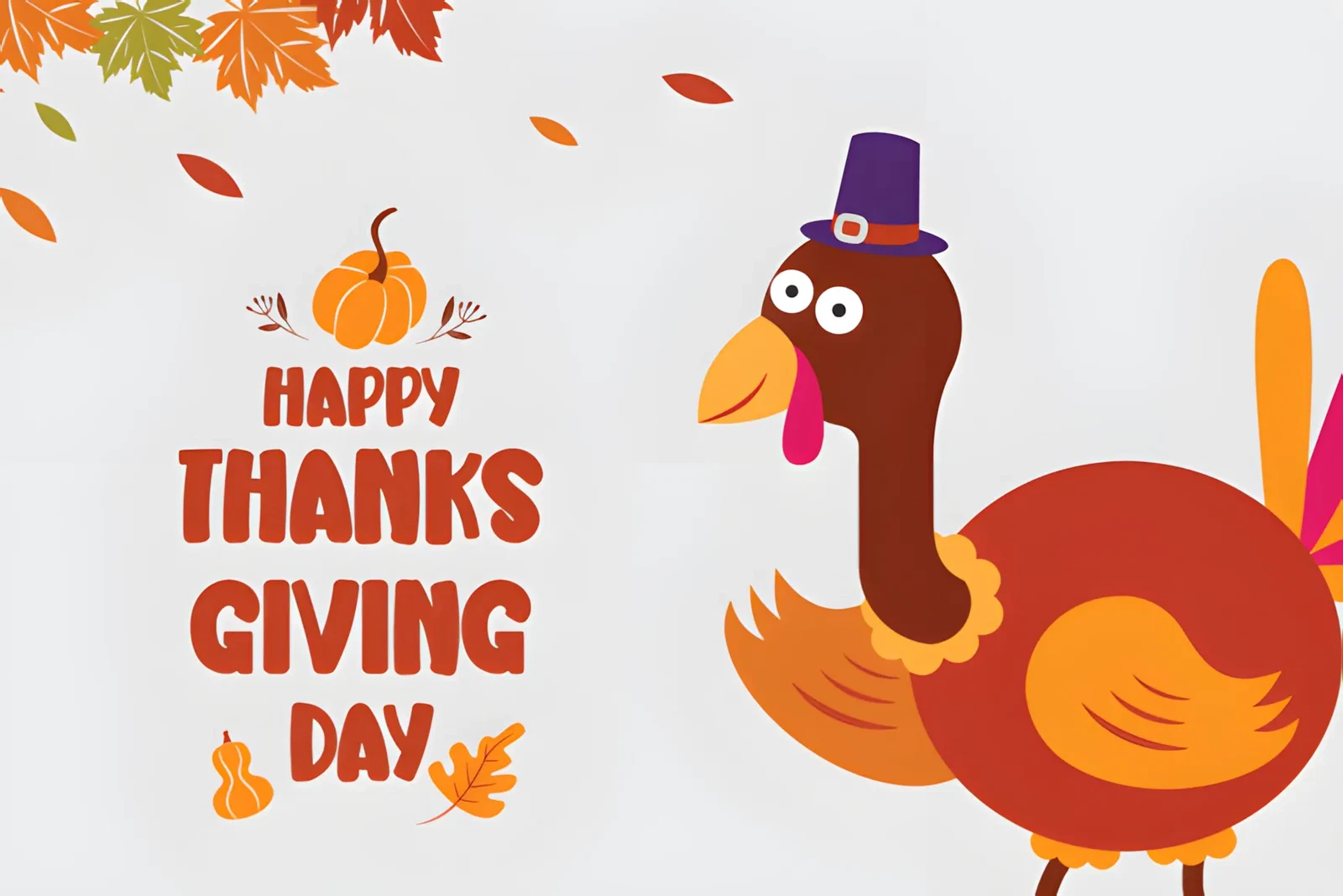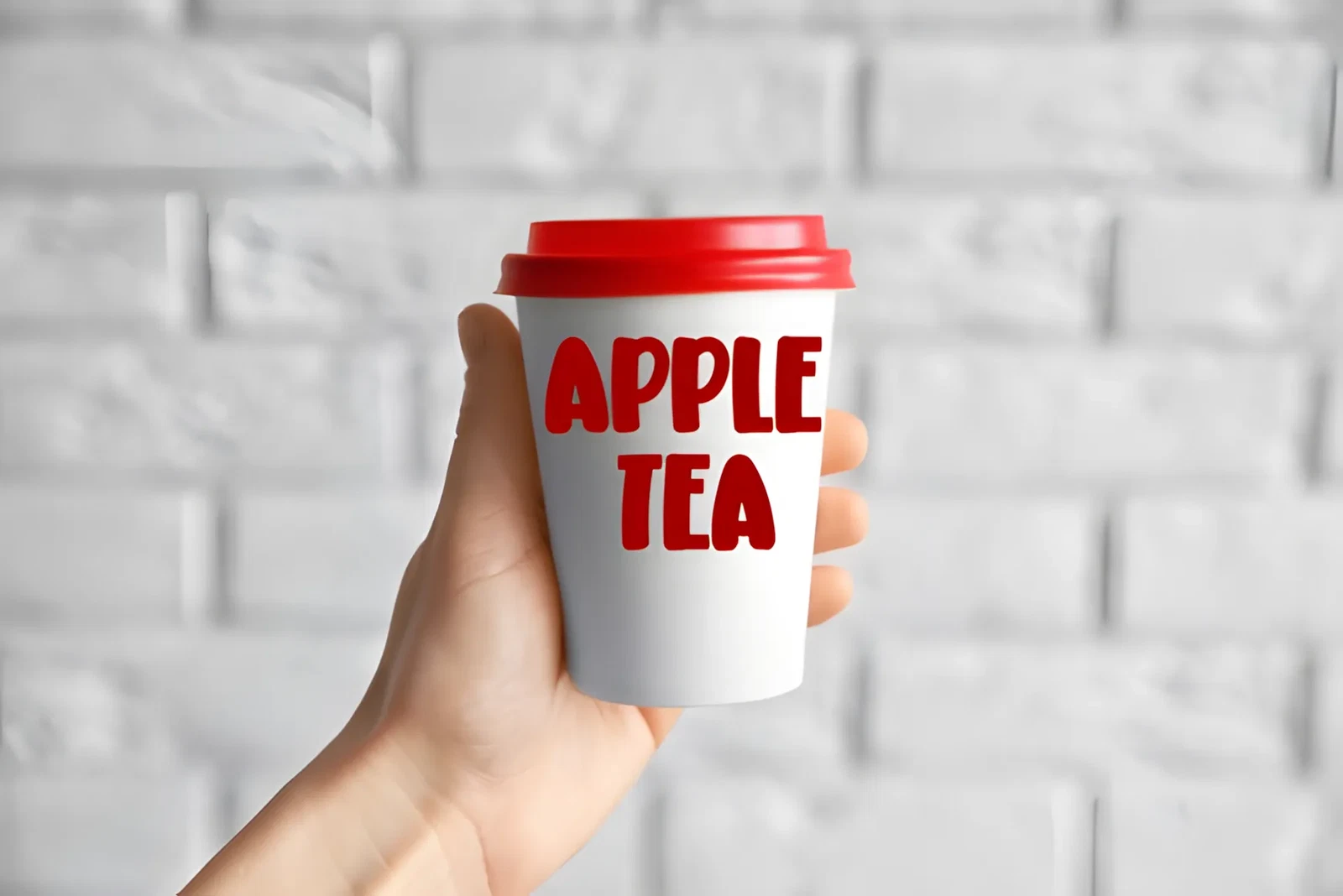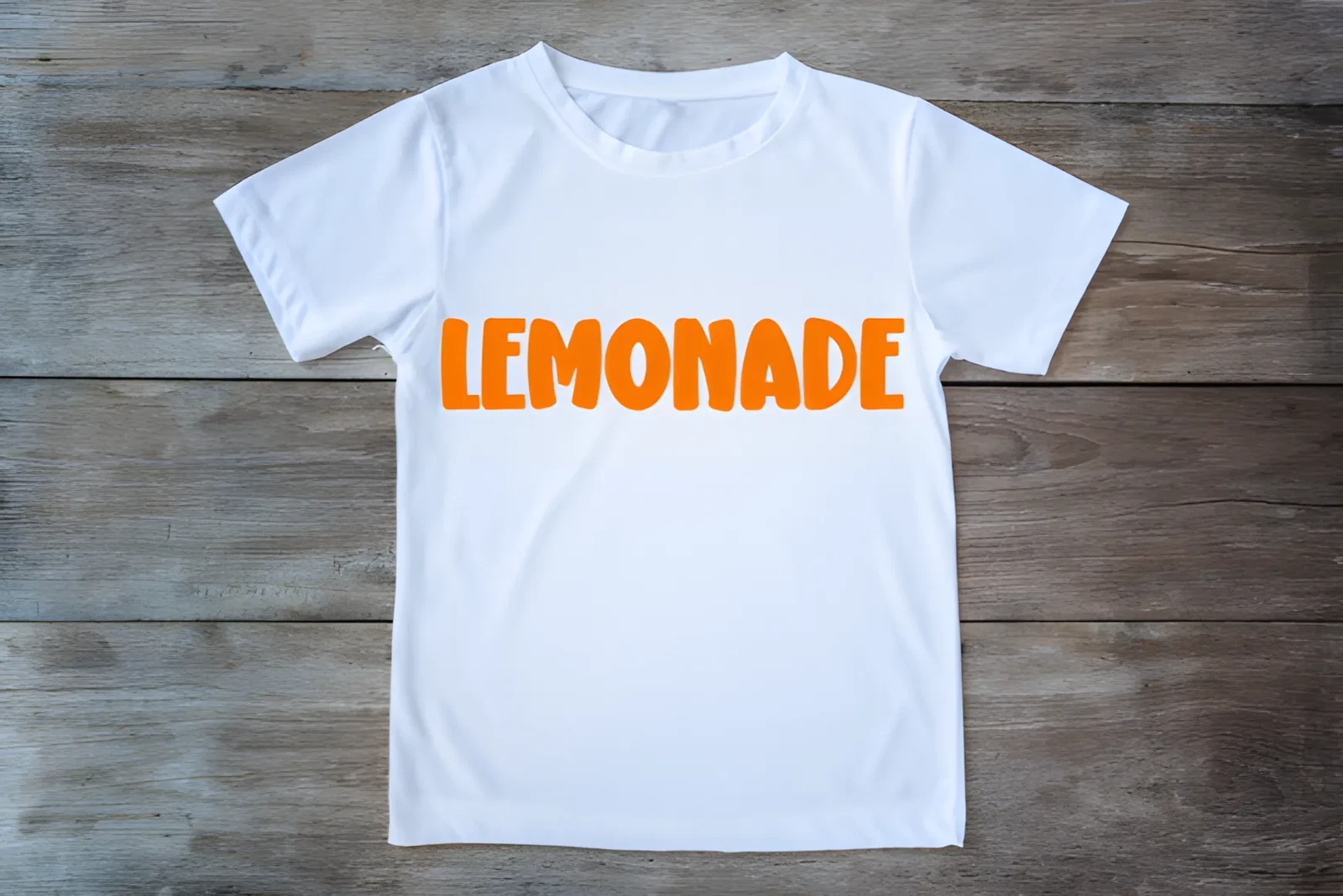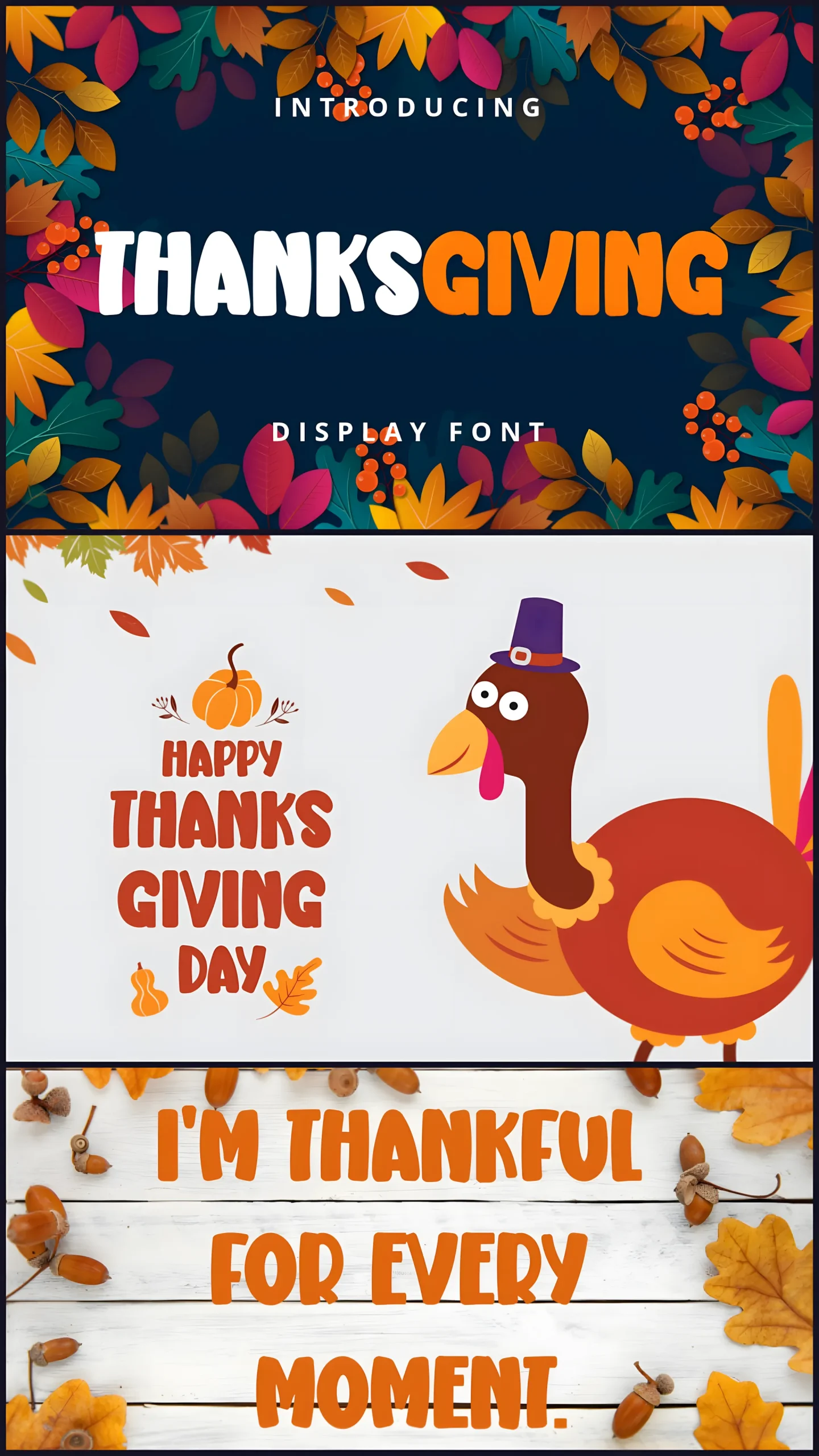
Seasonal fonts often lean too hard into decoration and end up being useful only once a year. Thanksgiving Font avoids that limitation. While it is clearly inspired by fall and holiday themes, it keeps a friendly, trendy style that works across a wide range of creative projects.
This is a display typeface designed to feel warm, welcoming, and approachable. It fits naturally into autumn designs, Thanksgiving celebrations, and family-oriented projects, but it also has enough versatility to be used beyond a single holiday.
Visual Style and First Impression
Thanksgiving Font immediately feels friendly. The letterforms are bold, rounded, and slightly playful, giving the typeface a soft and modern character. There is nothing sharp or aggressive about the shapes, which makes the font feel inviting rather than loud.
The overall look balances trendiness with simplicity. It doesn’t rely on heavy textures or complex details. Instead, the personality comes from the proportions and curves of the letters. This makes the font easy to read while still giving it a distinctive style.
The result is a display font that feels comfortable and familiar — perfect for designs that aim to create a cozy, seasonal mood.
Designed for Thanksgiving and Beyond
Although the font is named Thanksgiving Font, its usability goes beyond one holiday. It works especially well for:
- Thanksgiving celebrations
- fall and autumn designs
- family-themed projects
- seasonal promotions
- friendly branding
The style communicates warmth and positivity, which makes it suitable for designs meant to feel personal and welcoming. It doesn’t push a strict holiday look, so it can easily be reused in other contexts without feeling out of place.
Practical Design Applications
Posters, Flyers, and Seasonal Graphics
Thanksgiving Font performs well in posters and flyers where clarity and friendliness are important. Headlines set in this font feel bold without being overwhelming, making them easy to read from a distance.
It works well for:
- Thanksgiving event posters
- fall festival flyers
- seasonal announcements
- promotional banners
The font’s structure helps the message stand out while maintaining a relaxed tone.
Invitations and Greeting Cards
One of the strongest use cases for Thanksgiving Font is invitations and greeting cards. The rounded shapes and friendly style make text feel personal, which is ideal for family gatherings and holiday invitations.
It fits naturally into:
- Thanksgiving dinner invitations
- holiday greeting cards
- seasonal messages
- printable invitations
The font adds character without overpowering the design, allowing the message to remain the focus.
Social Media and Digital Content
On digital platforms, readability is key. Thanksgiving Font holds up well on screens and remains clear at different sizes. This makes it a solid choice for:
- social media posts
- story graphics
- seasonal banners
- digital announcements
Its friendly tone also matches the informal nature of social media, helping content feel approachable and engaging.
Readability and Font Behavior
As a display font, Thanksgiving Font is designed for titles and short text rather than long paragraphs. Within that role, it performs reliably.
The spacing and proportions make it readable at both medium and large sizes. The letters don’t crowd each other, which helps maintain clarity even when used in bold headlines.
For longer text, pairing Thanksgiving Font with a simple sans-serif or serif font keeps the layout balanced and easy to read.
Emotional Tone and Design Feel
The emotional tone of Thanksgiving Font is warm and positive. It feels friendly, cheerful, and relaxed. This makes it especially suitable for designs aimed at families, children, and community events.
Instead of focusing on formality or tradition, the font supports a more modern and casual interpretation of seasonal design. It helps create visuals that feel inclusive and easygoing.
Thanksgiving Font is a friendly, trendy display typeface that brings warmth and personality into seasonal design. It avoids heavy decoration and instead focuses on clarity, balance, and approachability.
For designers and creators looking for a font that supports fall and Thanksgiving projects while remaining versatile and easy to use, Thanksgiving Font offers a reliable solution. Used thoughtfully, it adds charm and readability to designs meant to feel welcoming and festive.